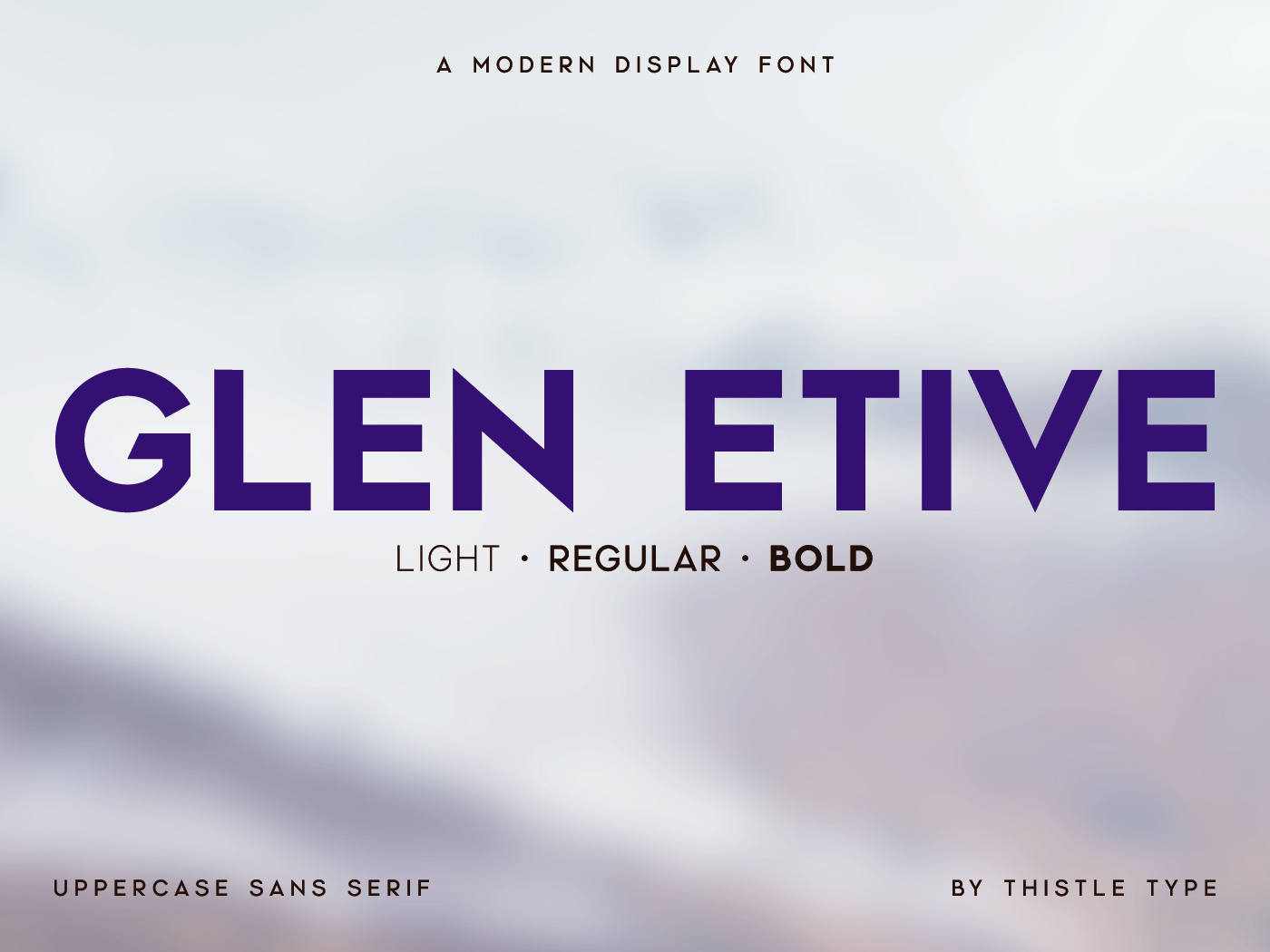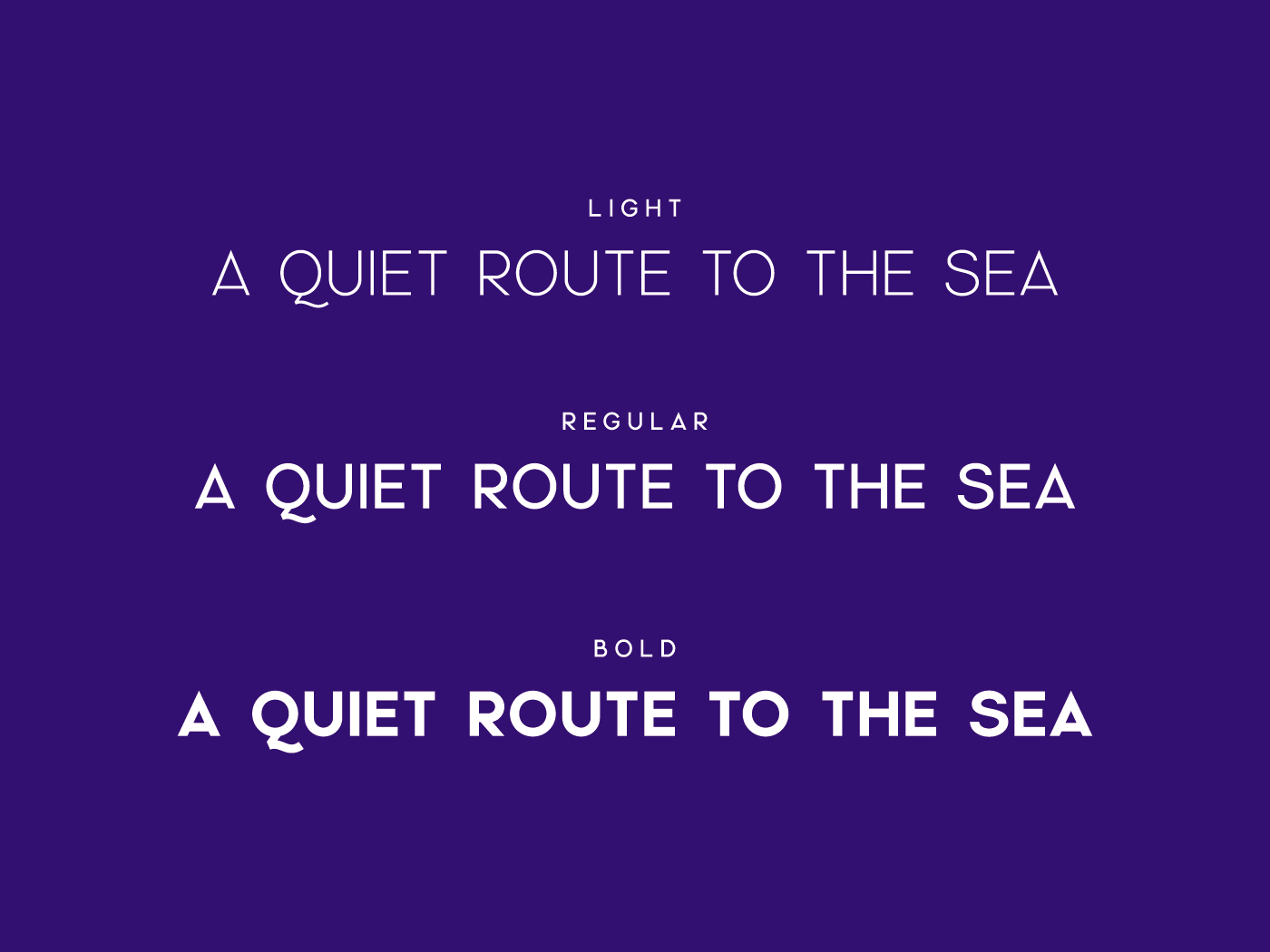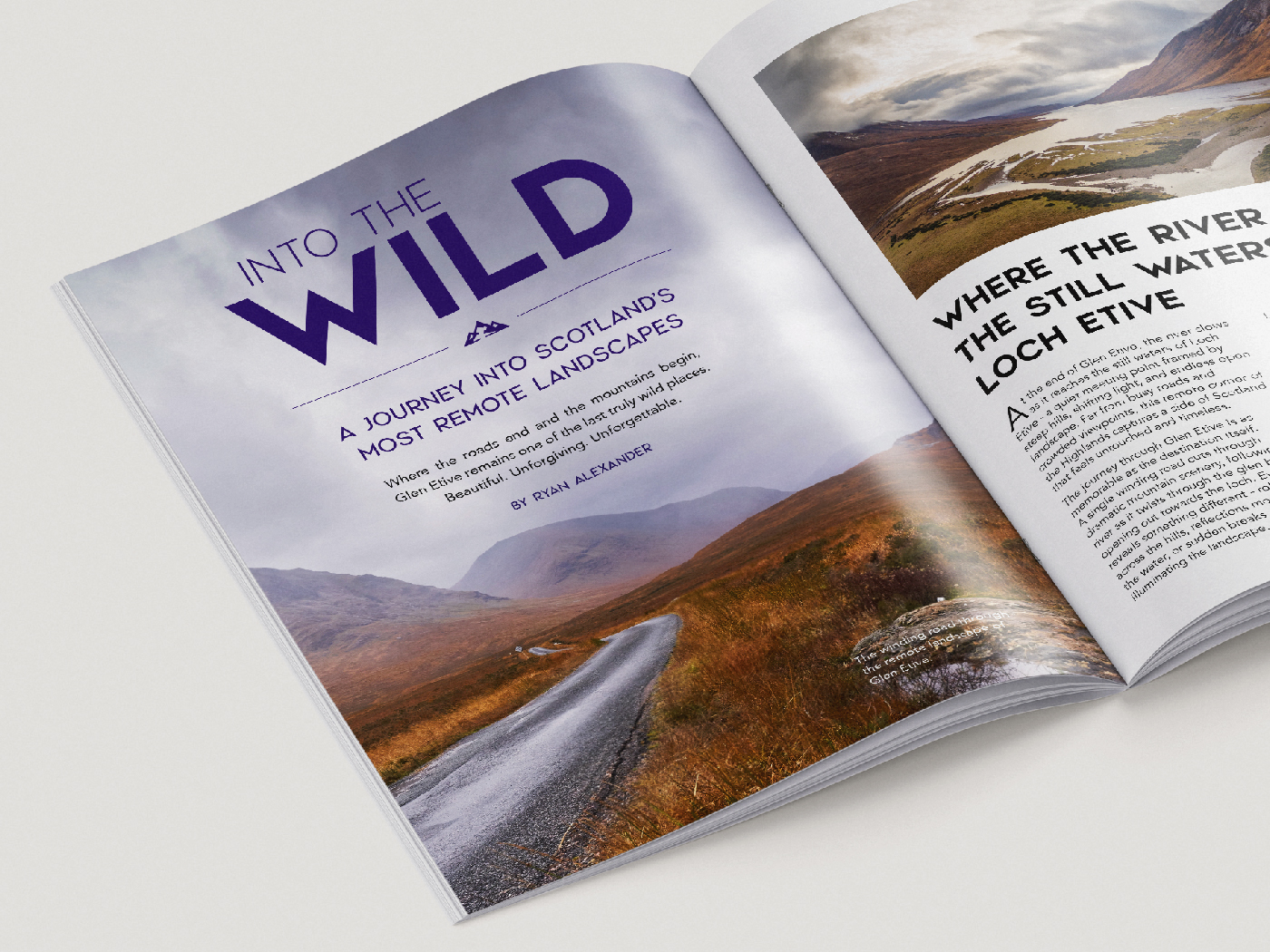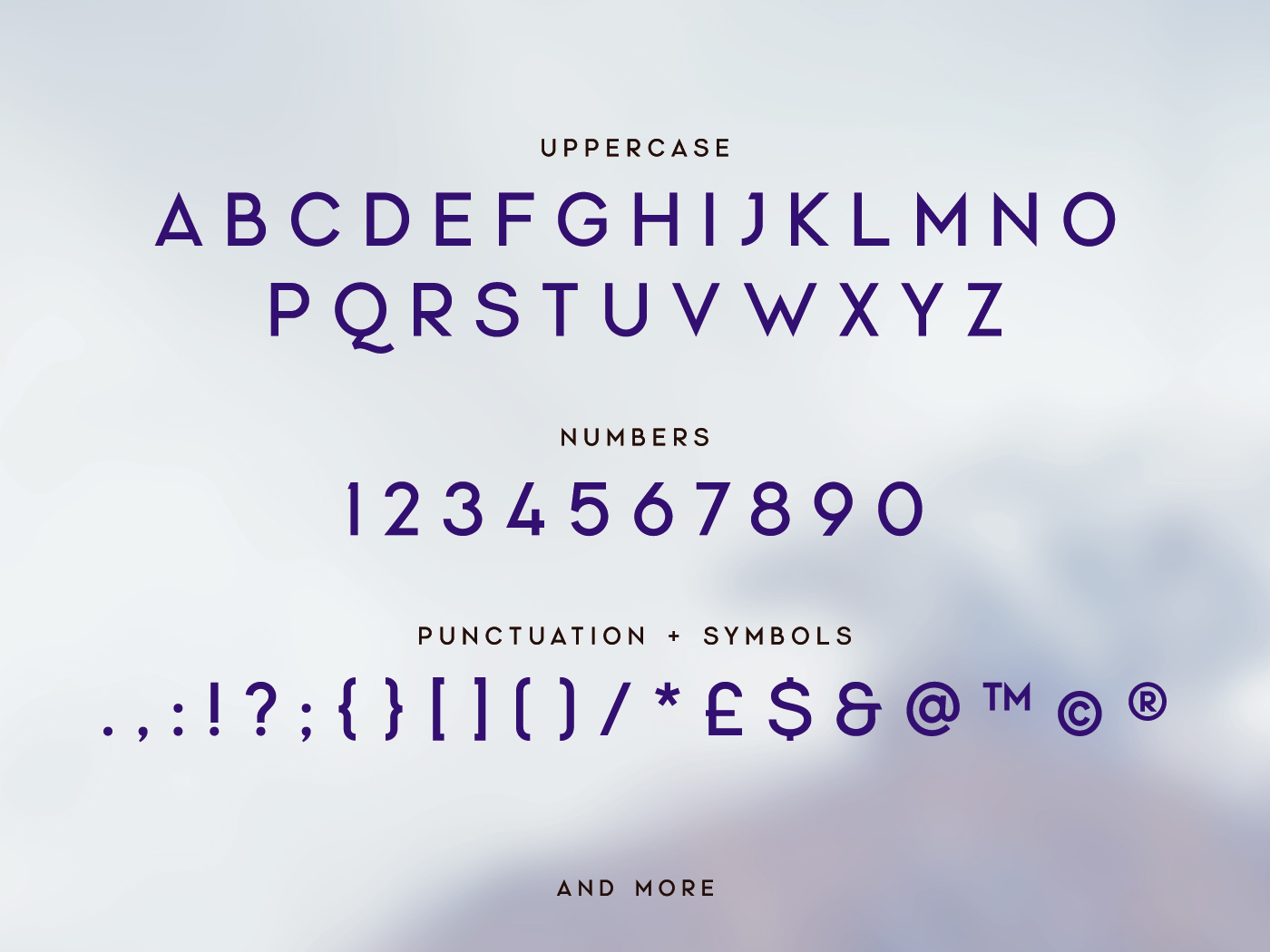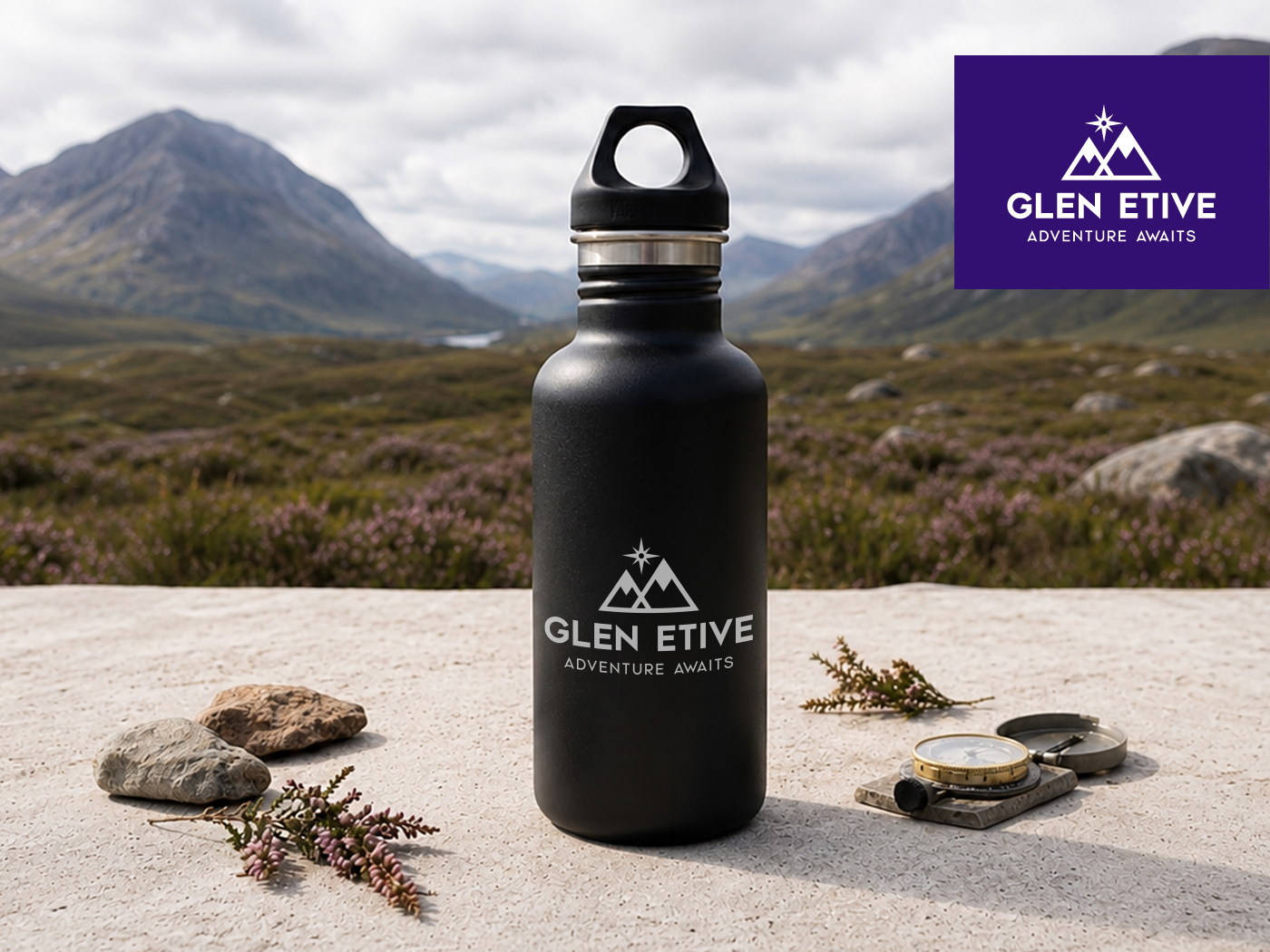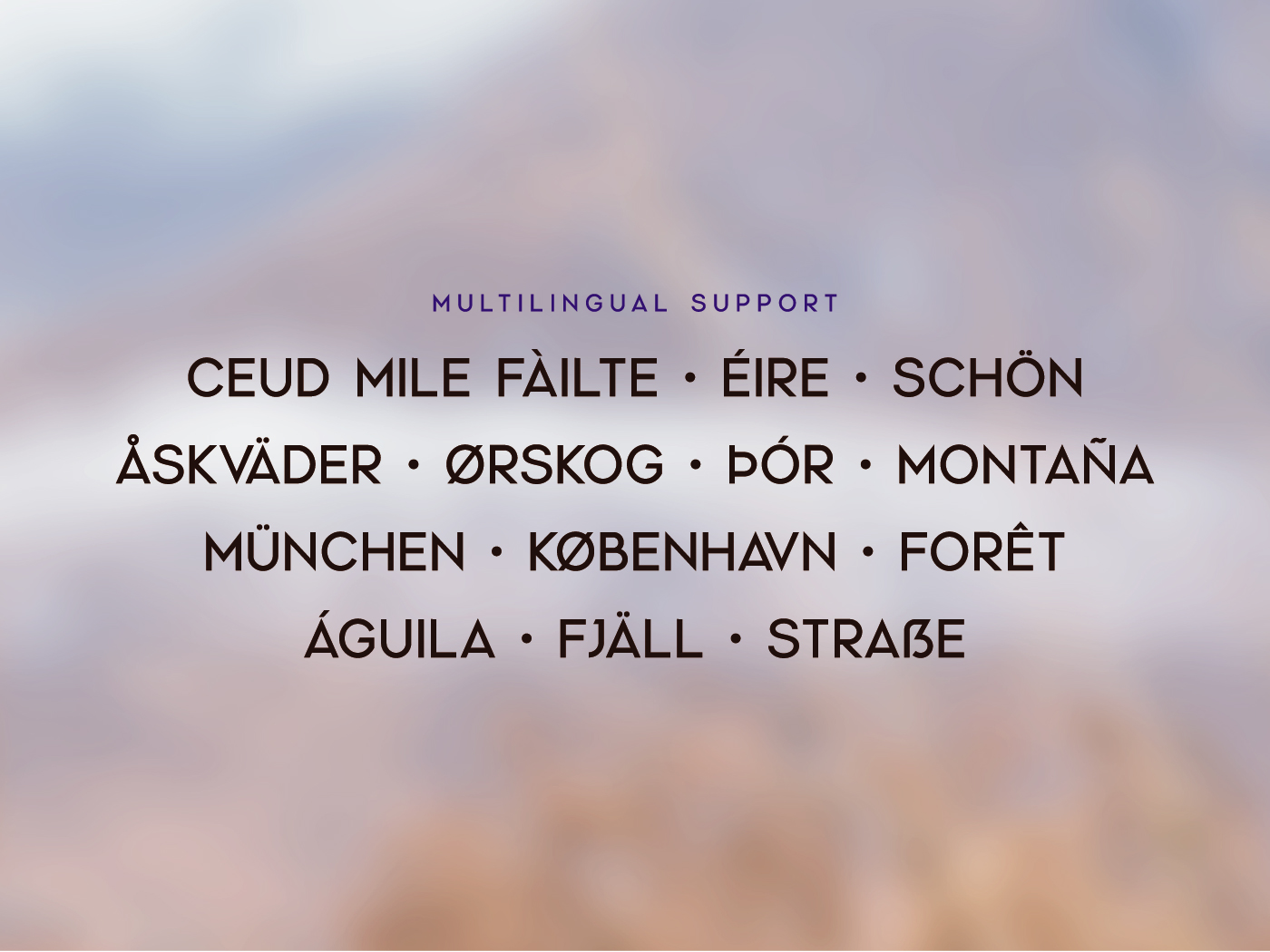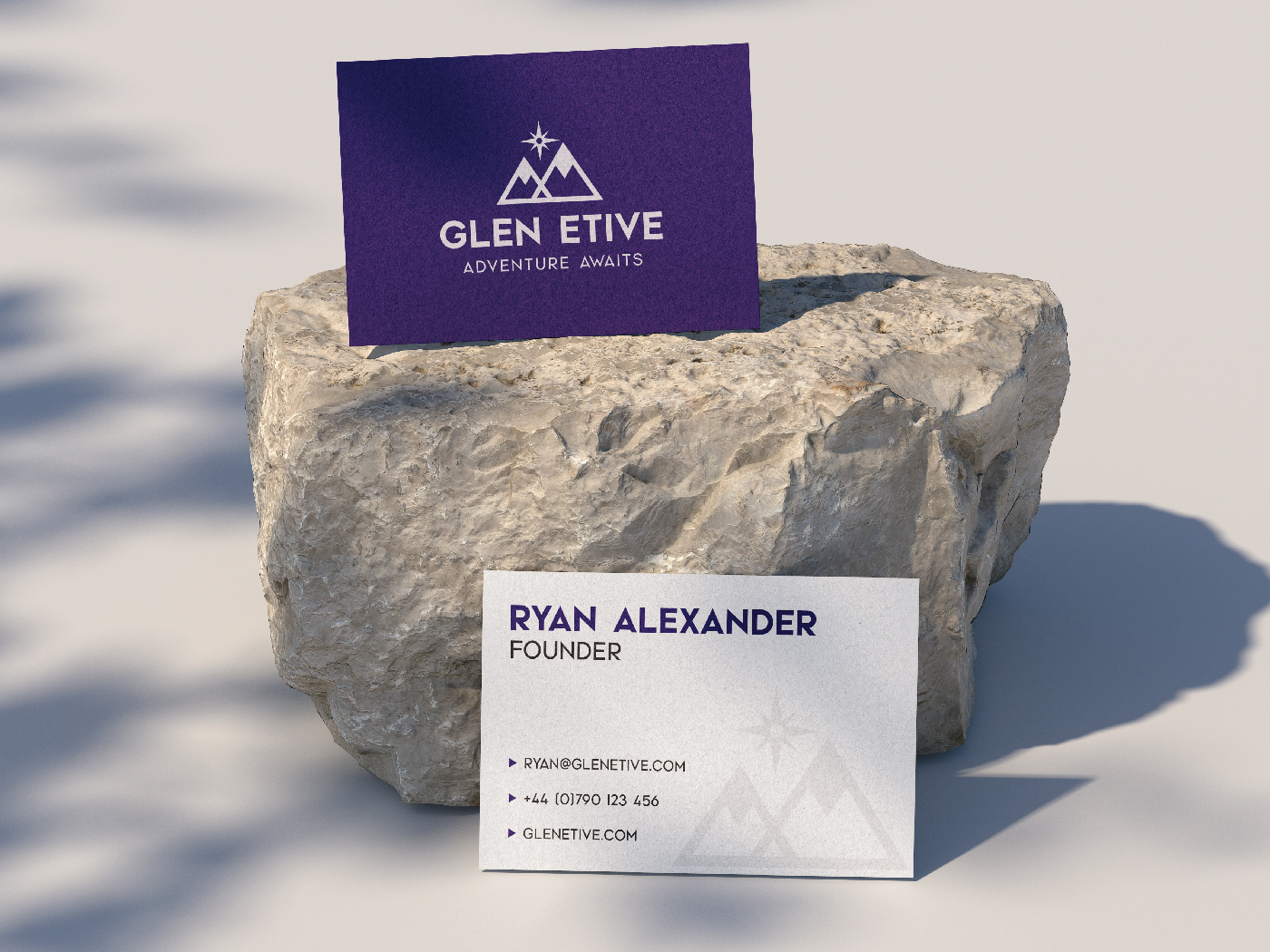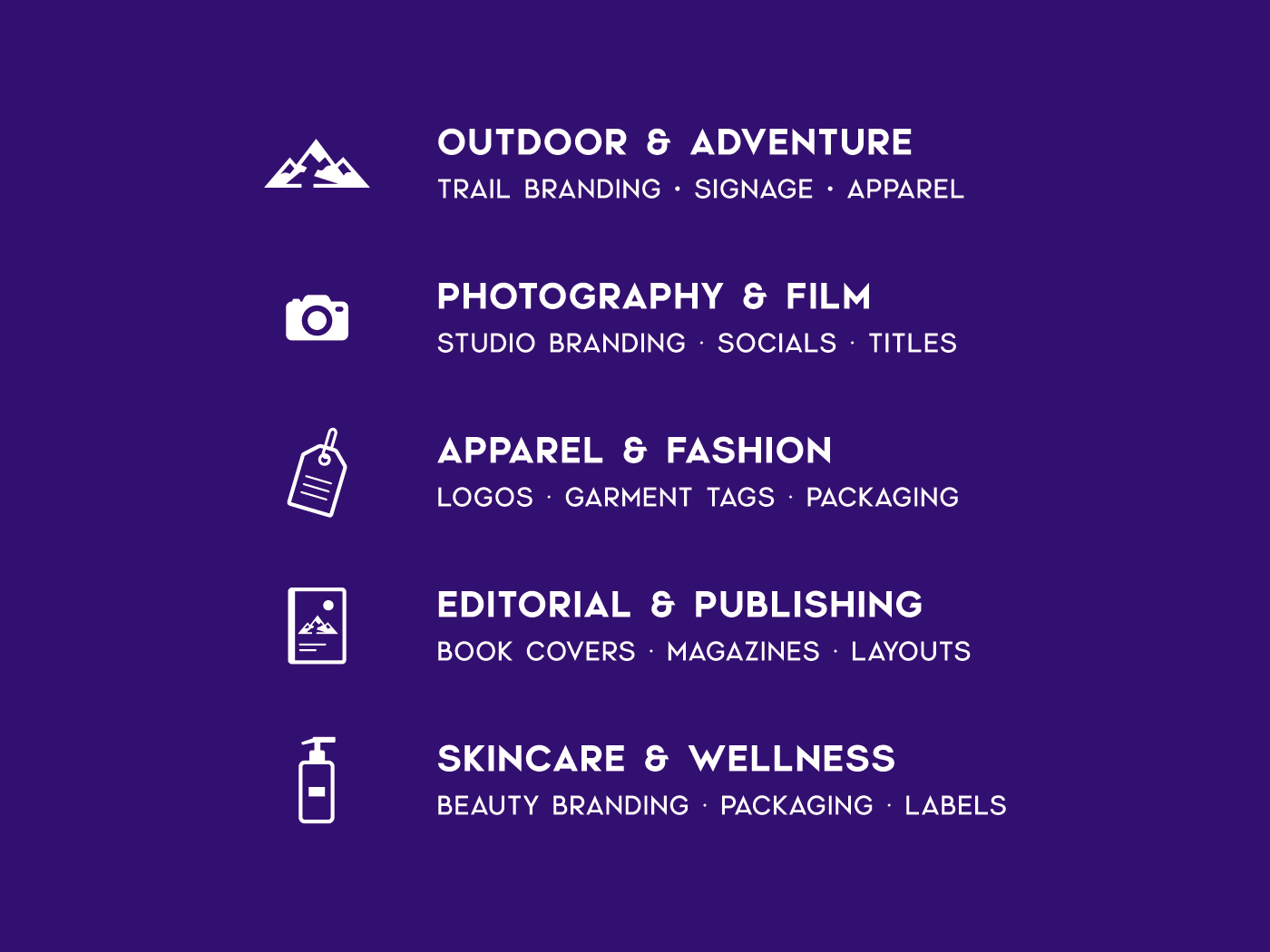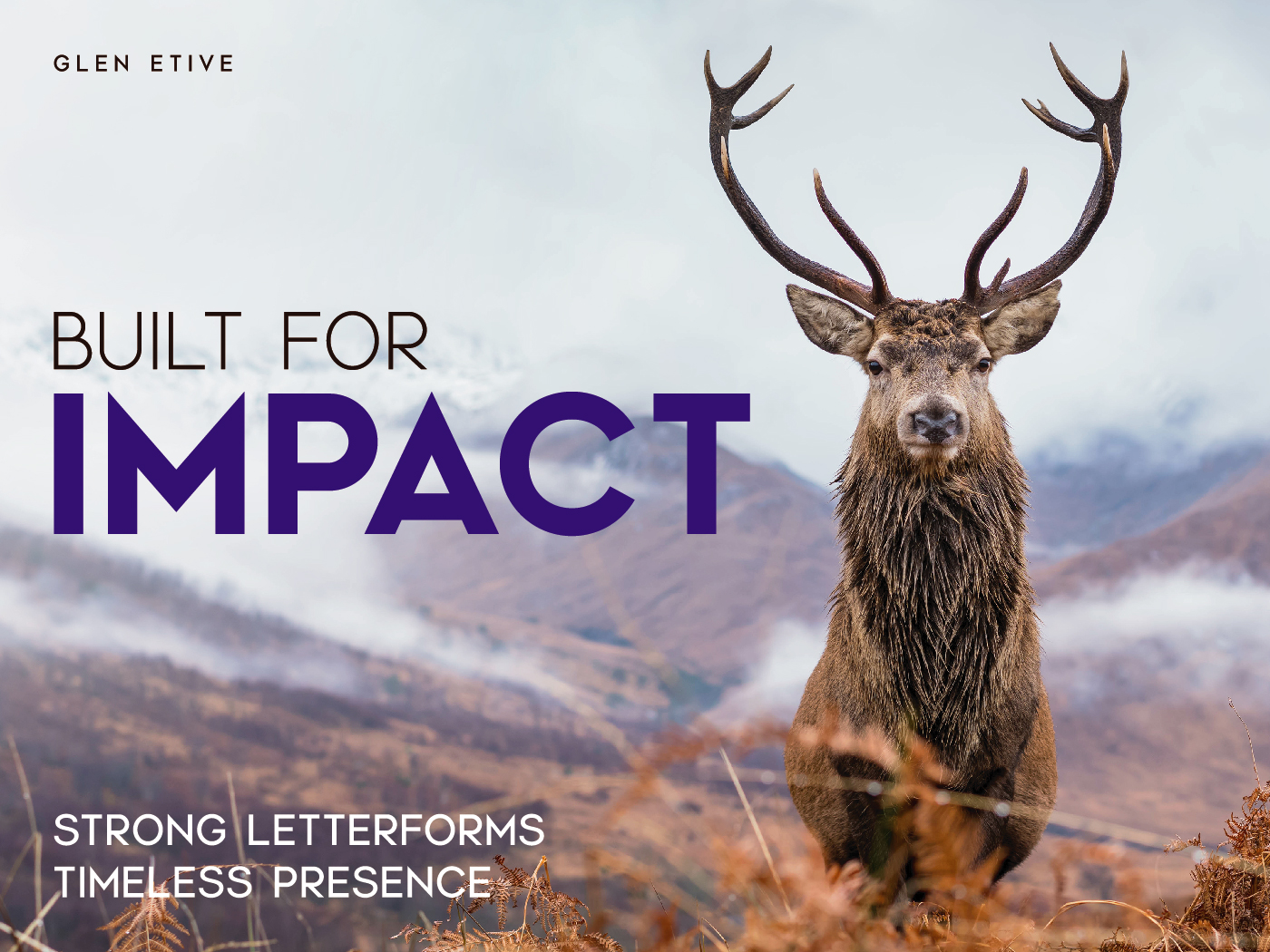
Glen Etive is a bold uppercase display font inspired by the Scottish Highlands. It’s made for designs that need to grab attention – from logos and branding to posters, packaging, and editorial headlines.
It blends strong, geometric letterforms with a more natural feel, taking subtle influence from mountains, glens, and flowing river landscapes. The result is something that feels structured but not cold. If you’re working on something where the typography needs to carry real weight, this is built for that. It works best in large headlines and identity work where first impressions matter.
Unlike more generic display fonts, Glen Etive has a bit more character in it – something that helps your work feel more grounded and distinctive without trying too hard.
Why choose Glen Etive:
- Instantly lifts branding with a bold, confident look
- Built for logos and strong, high-impact headlines
- Holds up well at large display sizes
- 3 weights: Light, Regular, Bold for flexibility
- Supports European languages